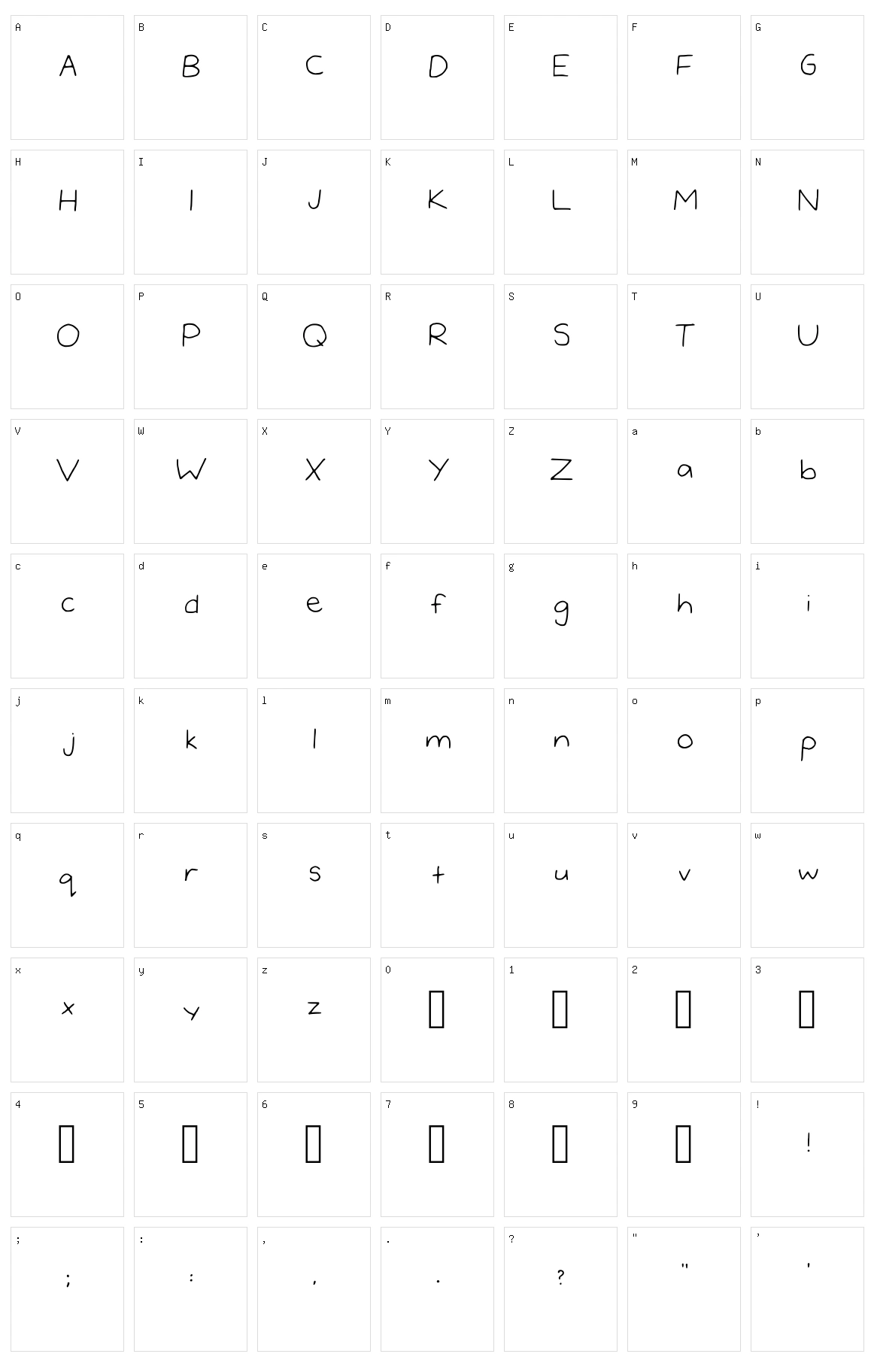
The free font Delphines Handwriting is carefully designed by Delphine Jude, showcasing a thoughtful balance of creativity and usability and falls under the Script font style. When you download the ZIP file, it contains only 7.74 KB of font files, making it lightweight and quick to download. Please review the license details below to understand permitted usage and distribution rights. If license information is not available, we recommend using this font for personal projects only or contacting the author directly for commercial usage permissions.